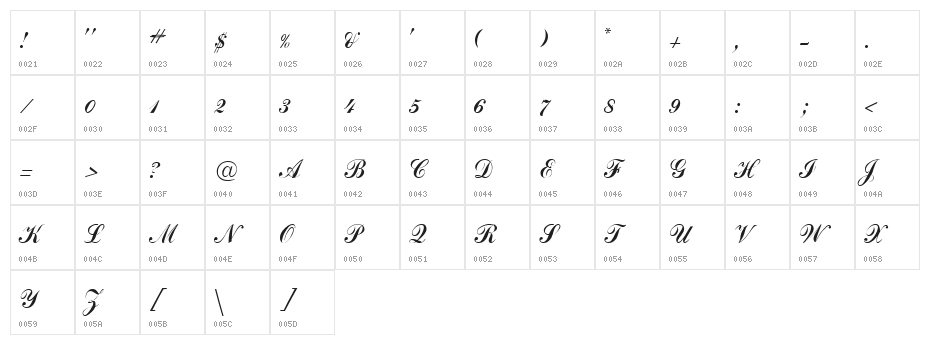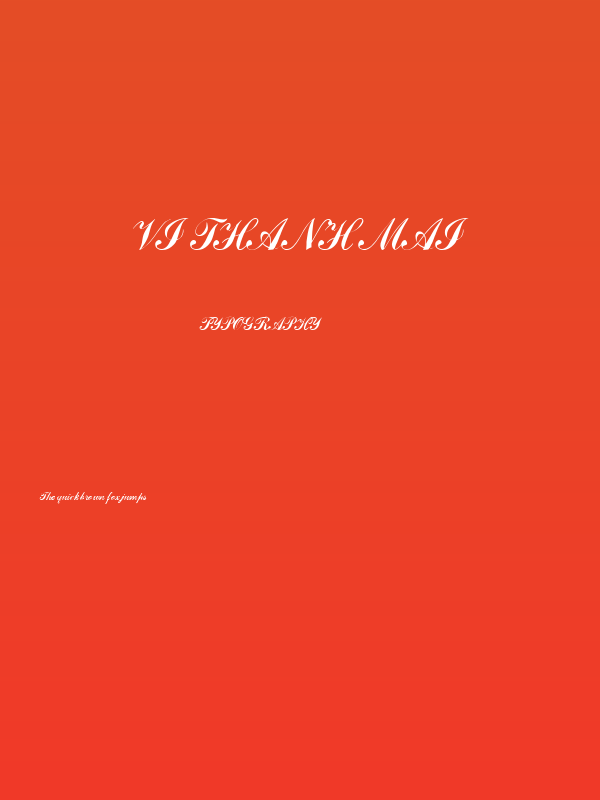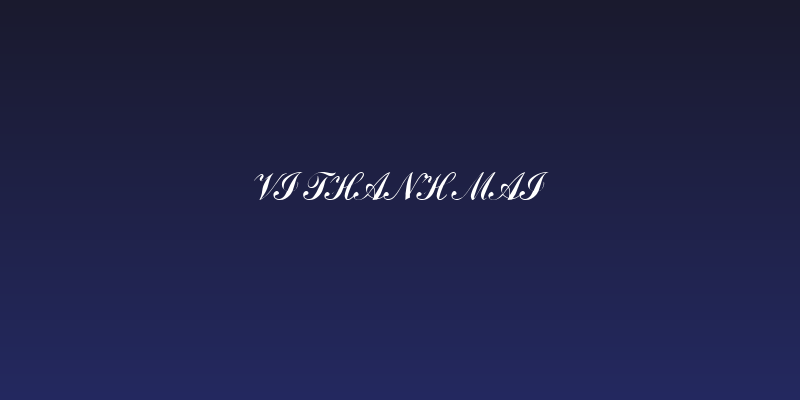
VI Thanh Mai Font
VI Thanh Mai Description
This font exhibits a classic and elegant script style, characterized by its flowing, cursive letterforms. The uppercase letters are particularly ornate, with intricate loops and flourishes that add a sense of sophistication and grace. The lowercase letters maintain a consistent flow, complementing the uppercase with their smooth and connected strokes. The numerals and special characters are designed to match the overall aesthetic, ensuring a cohesive look across all text. This font is ideal for projects that require a touch of elegance and formality.